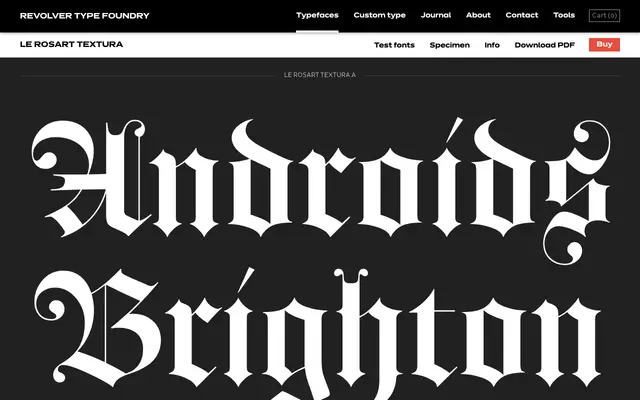
Le Rosart Textura
A two-variant textura blackletter from Revolver Type Foundry, split into two distinct stylistic subfamilies.
Released in two separate cuts, Le Rosart Textura A and B offer distinct approaches within the textura blackletter tradition. The angular, medieval character of the letterforms makes it suited to display and editorial contexts where historical weight is required. The split into two subfamilies suggests meaningful stylistic differences between the variants rather than simple weight progression.
The name explicitly includes 'Textura', indicating a blackletter style rooted in the medieval textura quadrata tradition, characterised by dense, angular letterforms.